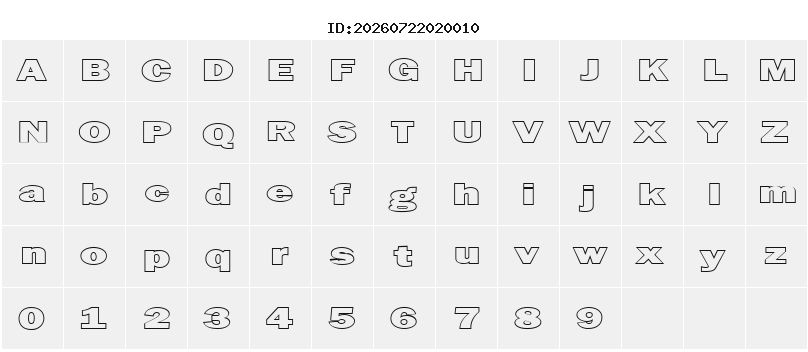
FZ BASIC 6 HOLLOW EX Preview
• Font Name: FZ BASIC 6 HOLLOW EX
About FZ BASIC 6 HOLLOW EX.ttf
FZ BASIC 6 HOLLOW EX.ttf is a modern, elegant sans-serif font designed for ultimate readability and visual harmony. Perfect for branding, headlines, web design, and print materials.